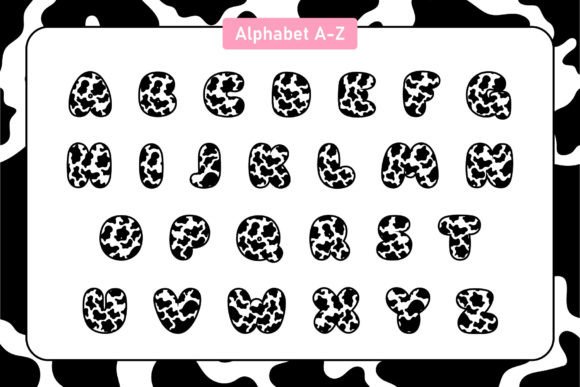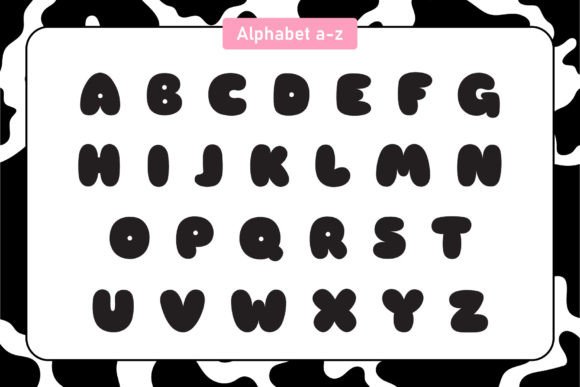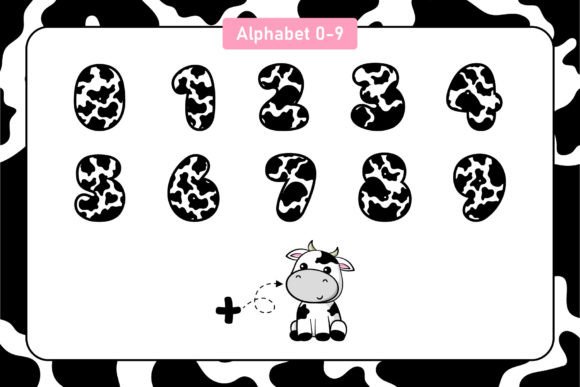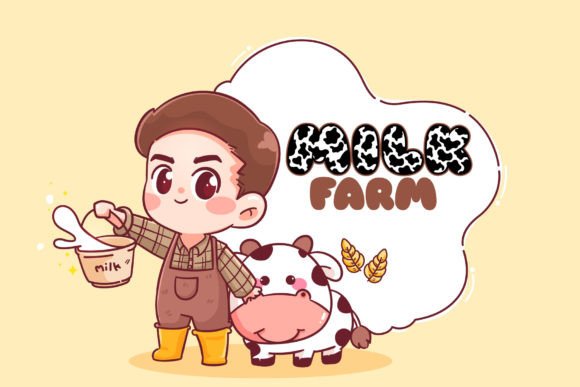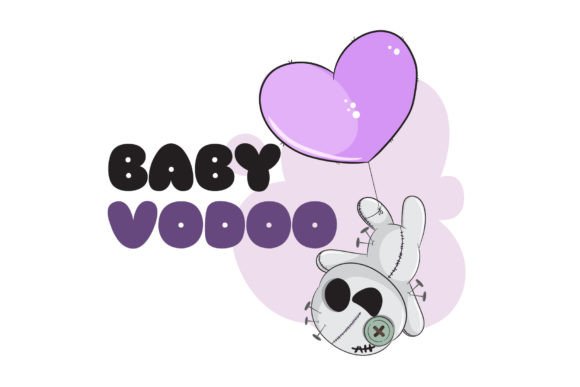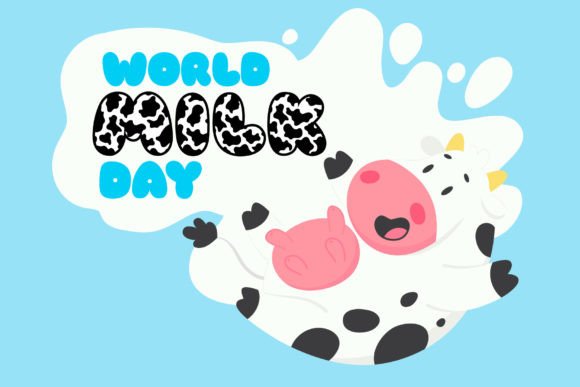
Cute Cow Font: Add a Touch of Whimsy to Your Designs
Are you looking for a unique and playful font to elevate your designs? Look no further than the Cute Cow Font! This adorable font is designed in two styles, offering a fresh and exciting way to add a personal touch to your creative projects. In this article, we’ll dive into the features and benefits of the Cute Cow Font, and explore how you can use it to create stunning invitations, stationery, social media posts, and more.
What is Cute Cow Font?
Cute Cow Font is a one-of-a-kind, color font that comes in two styles. The first style features a font with a built-in color and pattern, while the second style allows you to change the font color to match your design. This versatility makes it perfect for designers and crafters who want to add a pop of personality to their work.
Key Features of Cute Cow Font
- Unique Color Font: Cute Cow Font is a color font (Opentype-SVG) that allows you to add a range of colors and patterns to your text.
- Two Styles: Choose from two adorable styles to match your design aesthetic.
- Customizable: Change the font color to match your brand or design scheme.
How to Use Cute Cow Font
Cute Cow Font is perfect for a variety of design projects, including:
- Invitations: Create gorgeous invitations for special occasions, such as weddings, birthday parties, and baby showers.
- Stationery: Add a touch of whimsy to your stationery, including notecards, greeting cards, and letters.
- Social Media Posts: Make your social media posts stand out with eye-catching text and colors.
- Greeting Cards: Design cute and playful greeting cards for any occasion.
Tips and Tricks for Getting the Most Out of Cute Cow Font
To get the most out of Cute Cow Font, here are a few tips and tricks to keep in mind:
- Experiment with Colors: Try out different color combinations to find the perfect match for your design.
- Mix and Match Styles: Combine the two styles to create a unique and playful look.
- Use it with Other Fonts: Pair Cute Cow Font with other fonts to create a visually appealing contrast.
Cute Cow Font is a unique and playful font that can add a touch of whimsy to your designs. With its two styles, customizable colors, and compatibility with popular design software, it’s perfect for designers and crafters looking to create stunning invitations, stationery, social media posts, and more. So why wait? Add Cute Cow Font to your design toolkit today and start creating gorgeous and eye-catching designs!